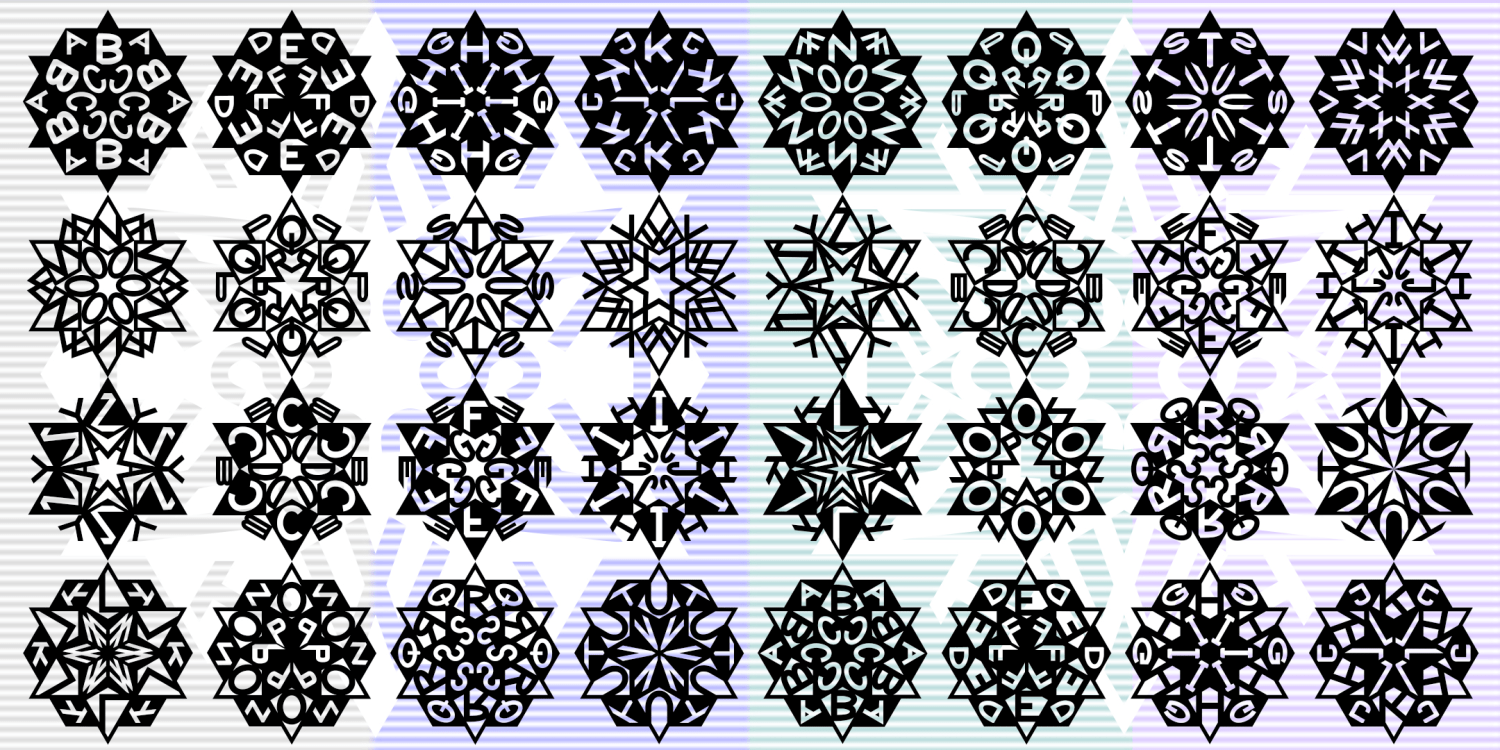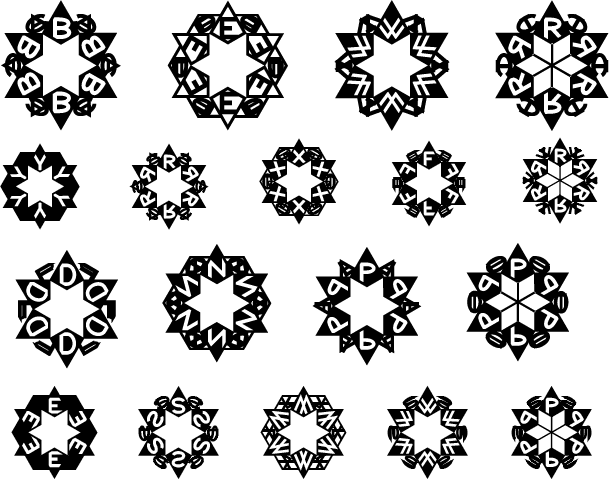
Snowflake Monograms
Snowflake Monograms is a set of four fonts for creating intricate snowflake-style monograms. Use any combination of 1, 2, or 3 letters to customize thousands of unique designs. With different colors, the monograms can look like flowers or abstract kaleidoscopic designs. The complete set includes four fonts that let you create monograms with black letters on a white background, white on black, and two mixed fonts for more choice.